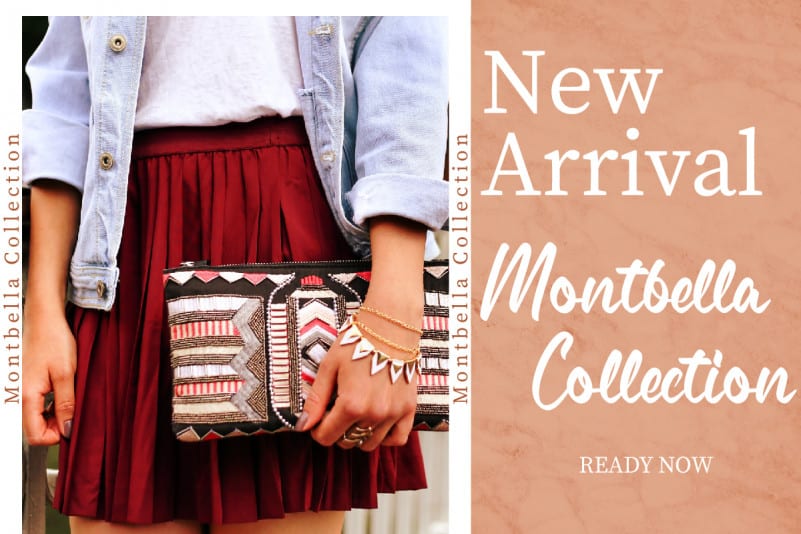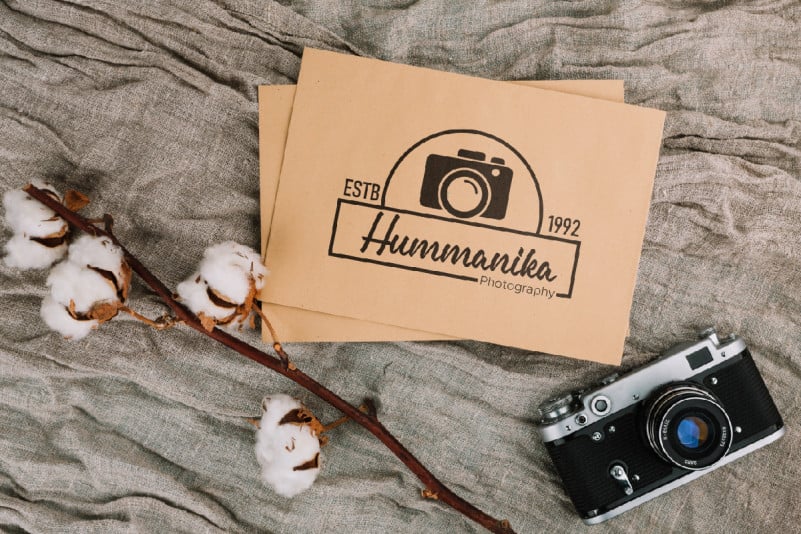
Erasable Script Font
Erasable Script Font is a simple bold brush font great for products, flyer, menu, advertising and many more. Erasable will be awesome for headlines, advertising, product, packaging, promotion, tittle etc. This font is crafted carefully in every its single letter so it is meant to emulate natural brush lettering with perfect for head-turning statements and eye-catching look!
Erasable Script Font includes full set of Uppercase and Lowercase Basic Characters, Numerals and Punctuation. Also it contains ligatures to make it flowless set font characters to perfectly make awesome look that add more aesthetic to perfect your extraordinary project.